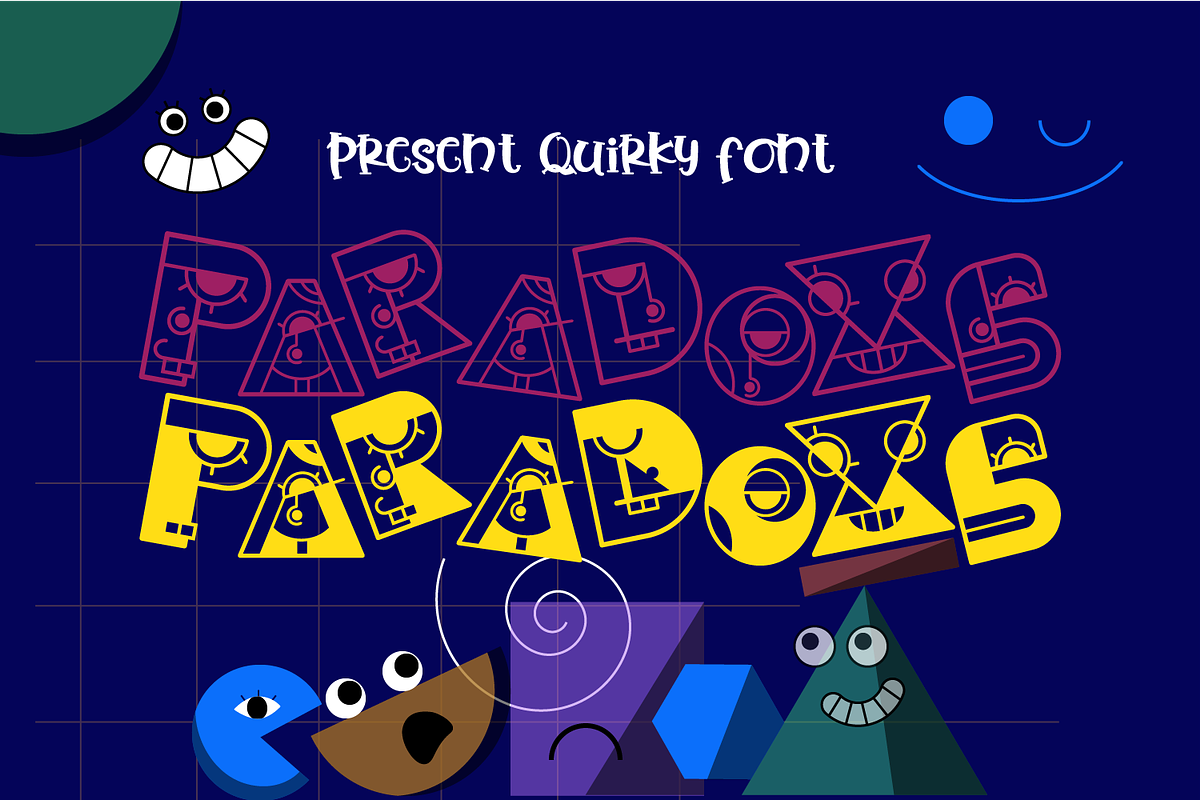
The Paradoxs Font Free Download is a striking and modern typeface designed to bring a unique, artistic touch to your designs. With its bold, geometric letterforms and edgy style, this font is perfect for creating eye-catching logos, posters, branding, and creative projects. Whether you're designing for a contemporary brand, digital media, or an avant-garde event, Paradoxs adds an intriguing and dynamic flair to your work.
Paradoxs Font Free Download is ideal for designers looking to add a modern, unique style to their creative work. Perfect for experimental designs, art projects, or any branding that requires a distinctive look, this font will help your designs stand out. Download it today and bring a fresh, dynamic energy to your creative projects with Paradoxs!